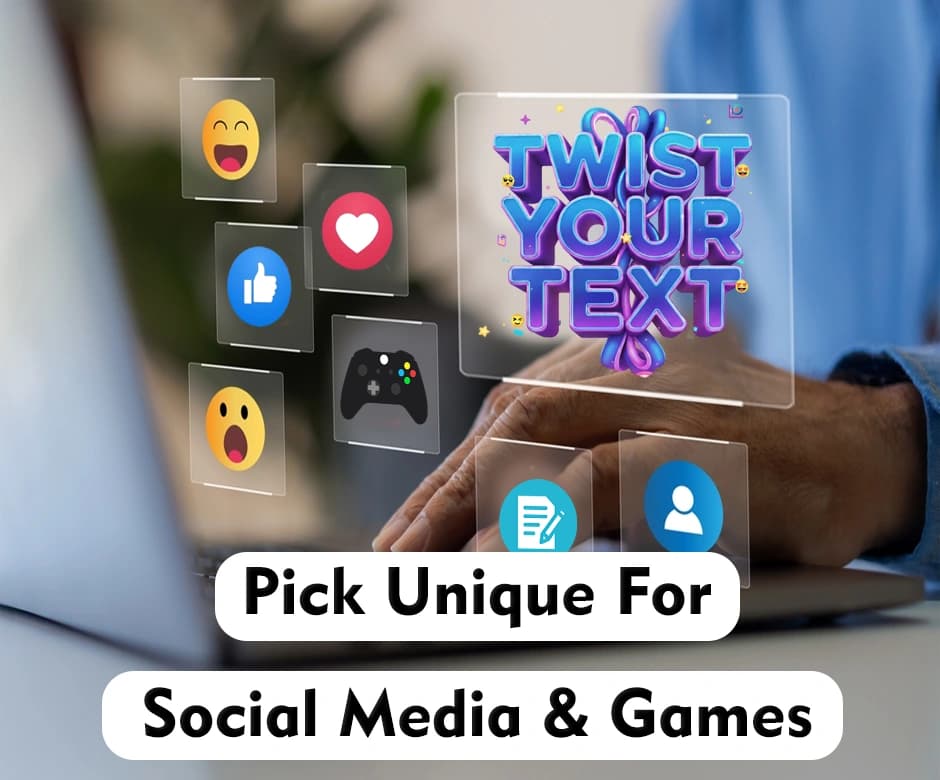
In the modern online world, standing out on social media and in games is more important than ever. One of the easiest ways to grab attention is by using unique fonts. Fonts can make your text more noticeable, reflect your personality, and help your posts or usernames leave a lasting impression.
From Instagram captions to gaming handles, the right font can make your content look professional, fun, or bold. Learning how to choose and use different fonts effectively can give you an edge and make your text more engaging for your audience.
In this article, we will discuss how you can use unique fonts to stand out on social media and in games.
Fonts are an important part of how your profiles are seen. On social media, a unique font can make your posts, captions, or bio more noticeable and engaging. It can show your personality and make your content stand out from the crowd.
In gaming, a distinct font can make your username or in-game text more memorable and recognizable to other players. Using the right fonts helps you leave a strong impression, express your style, and make your social media and gaming profiles more appealing to your audience.
If you want your social media posts or gaming profiles to stand out, experimenting with different fonts is a great place to start. Here are some popular and creative font styles you can use:
Fancy texts add a touch of elegance or style to your posts. They often include decorative elements like swirls, stars, or unique shapes. You can use our Fancy Text Generator tool to create such fonts efficiently. Use them for Instagram captions, bios, or even game handles to give your content a stylish and eye-catching look.
Bubble letters are playful and bold. They work well for attention-grabbing posts, fun gaming names, or highlights in your stories. Their rounded, soft appearance makes your text pop and adds a friendly vibe. Creating these types of letters may sound difficult, but it’s actually very easy. You just need to input your plain text in the Bubble Letter Generator tool, and it will create the fonts for you.
Cursive fonts give your text a handwritten, personal feel. They are perfect for captions, messages, or gaming profiles where you want to appear creative or artistic. Make sure they remain readable, especially in smaller sizes.
If you want to create high-quality cursive fonts, you can use our Cursive Generator tool. It will convert your simple text into high-quality cursive fonts that you can use on social media and gaming profiles.
Freaky fonts are edgy, unusual, or spooky. They are great for gaming profiles, horror-themed posts, or content where you want to look bold and unique. The best way to create these texts is with our Freaky Font Generator. It generates these texts within a matter of seconds.
Glitch texts mimic digital errors or distortion, giving a modern, techy vibe. They work well for gaming handles, streamer names, or futuristic-themed posts. Using glitch fonts can make your text look dynamic and memorable.
Creating such texts is pretty simple. You can try out our Glitch Text Generator for this purpose. This tool is designed to convert plain text into glitchy fonts instantly.
The following useful points can help you pick the right text style for games and social media:
Using unique fonts is a simple yet powerful way to make your social media posts and gaming profiles stand out. The right font can reflect your personality, grab attention, and leave a lasting impression on your audience.
By experimenting with styles like fancy texts, bubble letters, cursive, freaky, or glitch fonts, and choosing them thoughtfully based on platform, mood, and readability, you can make your content more engaging and memorable. Twist your text wisely to stand out and showcase your style.
Frequently Asked Questions (FAQs):
Unique fonts are styles of text that look different from standard fonts. They can be decorative, bold, playful, or edgy to make your text stand out.
Using unique fonts can grab attention and make your posts or captions more memorable. They also help show your personality and style.
Yes, unique fonts can make your username or in-game text more noticeable and recognizable. They help you stand out in a crowded gaming community.
Not always. It’s important to pick fonts that are creative but still easy to read on different devices.